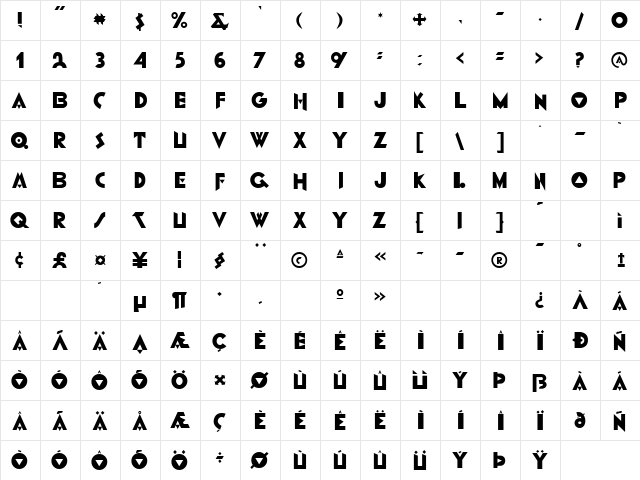
P22 Futurismo Regular
Design Context for P22 Futurismo Typeface
P22 Futurismo channels digital-age aesthetics through its sharp, structured letterforms — ideal for brands that want to signal innovation.
Pro Tip: Try P22 Futurismo with generous letter-spacing in UI labels and navigation — the geometric forms benefit from room to breathe.